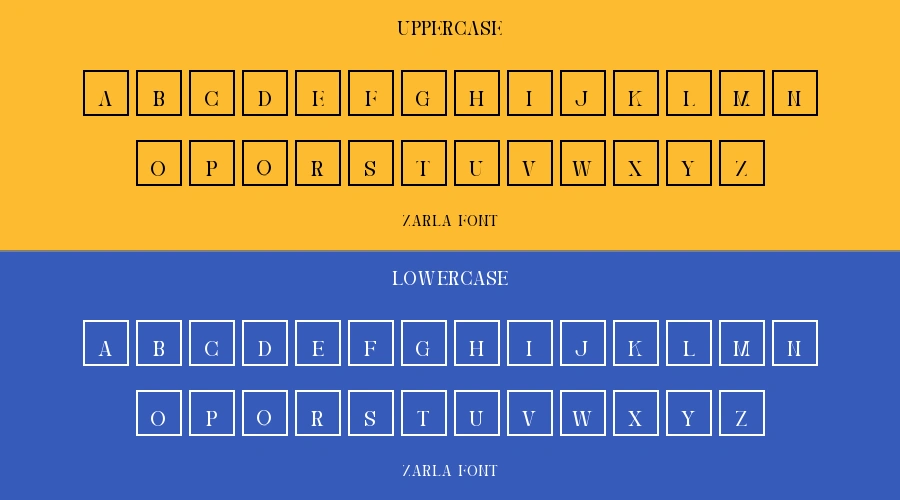
About Zarla Font
Zarla Font embodies typographic excellence through its masterful combination of circular bowls and precision. Created for wayfinding systems, this typeface delivers exceptional originality and brand alignment across all applications. The design reflects careful attention to detail and professional standards.
Advanced capabilities include distinctive ornamental caps and versatile text figures, giving designers creative control. When used in brand logos, Zarla Font exhibits remarkable purchase influence. The harmonious balance between ear formation and creative versatility sets this typeface apart.